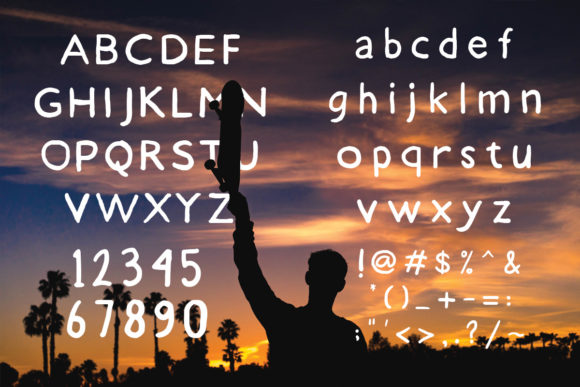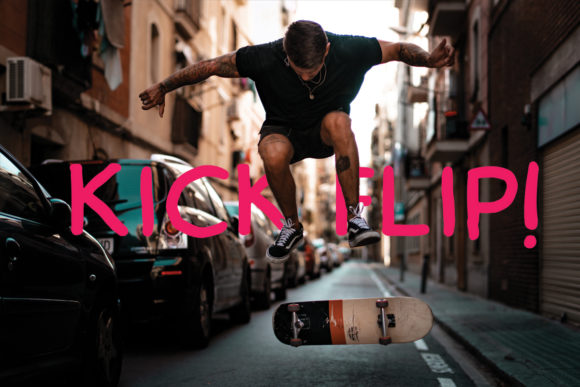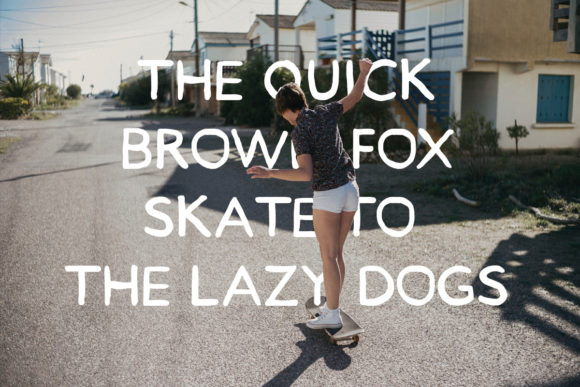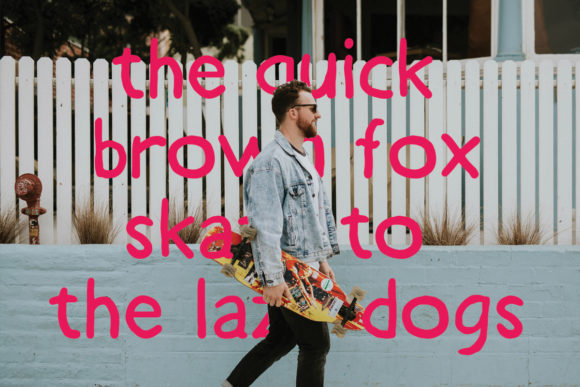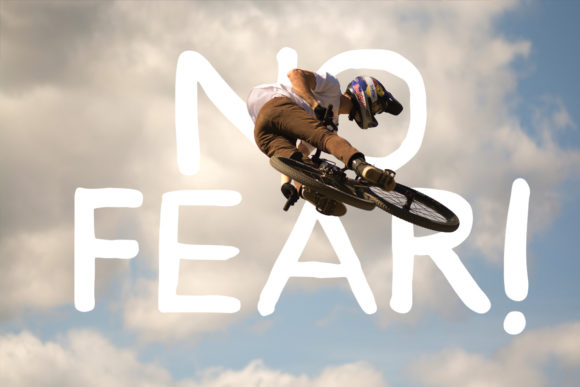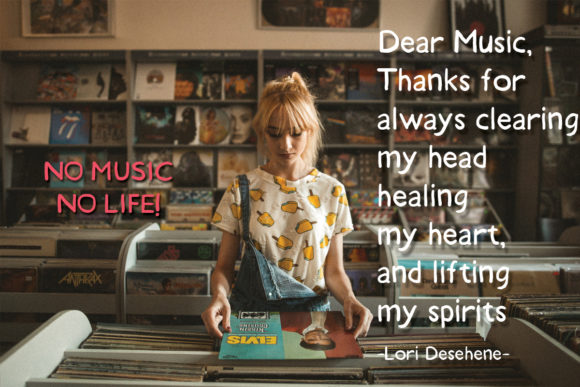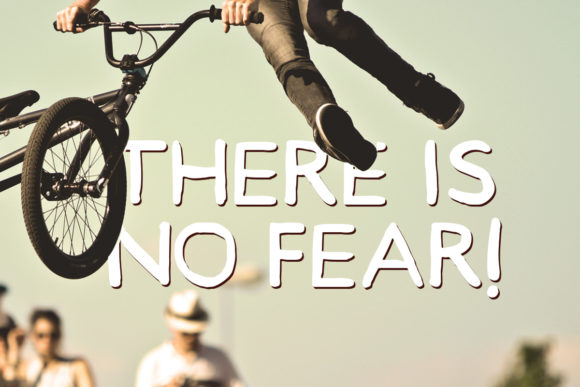
HomeScript FontsGirisenna Font Script Fonts Girisenna Font FacebookXPinterestWhatsApp Girisenna Font Poster 2 Girisenna Font Poster 3 Girisenna Font Poster 4 Girisenna Font Poster 5 Girisenna Font Poster 6 Girisenna Font Poster 7 Girisenna Font Poster 8 About Girisenna Font Girisenna is a lovely handwritten font with a youthful charm. It will add a cool vibe to any design project! DOWNLOAD ON CREATIVE FABRICAThis font is sold and delivered by Creative Fabrica. Font Canyon may earn a commission if you buy through this link. People also explored Lovelia Stars Font Northern Stars Spaced Font Frederick Alexander Font Calling Code Glatefa Font Hey Witch Font Memphis Park Font Ezkialova Font Colorado Font 309 0 TagsGirisenna Font Previous articleKopi Soesu FontNext articleAllice Font LEAVE A REPLY Cancel reply Comment: Please enter your comment! Name:* Please enter your name here Email:* You have entered an incorrect email address! Please enter your email address here Website: Save my name, email, and website in this browser for the next time I comment. Personal Use Free Angelia Personal Use Free Read more about this font Astagina Signature Personal Use Free Read more about this font Street Cred Personal Use Free Read more about this font Omellia Personal Use Free Read more about this font BLOG Elegant Wedding Invitation Fonts – Handwritten & Script Fonts Elegant Wedding Invitation Fonts Your wedding day is one of the most important moments of your life, and every detail matters—including your invitation design. Our... Top 10 Handwritten Fonts That Elevate Your Designs Best Fonts for YouTube Videos: Make Your Thumbnails Stand Out Modern Sans-Serif Fonts That Brands Love in 2025